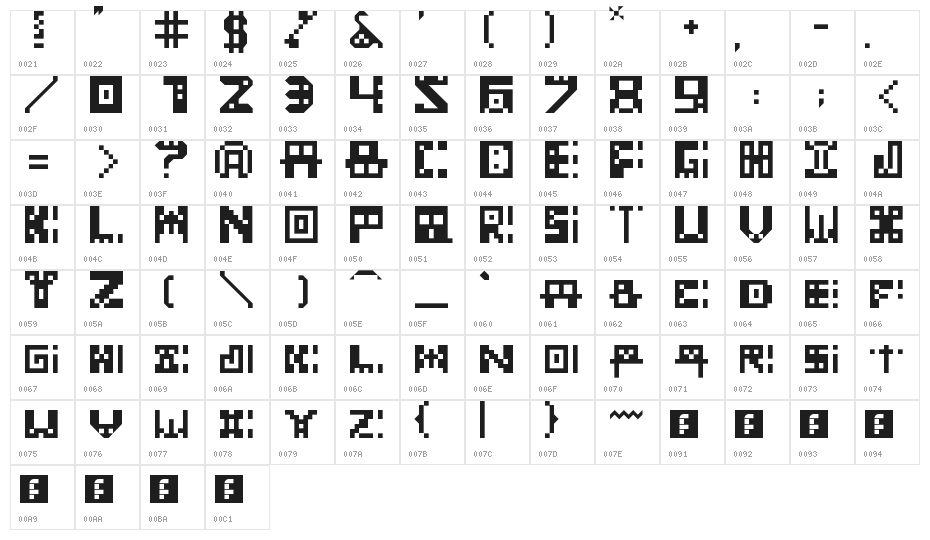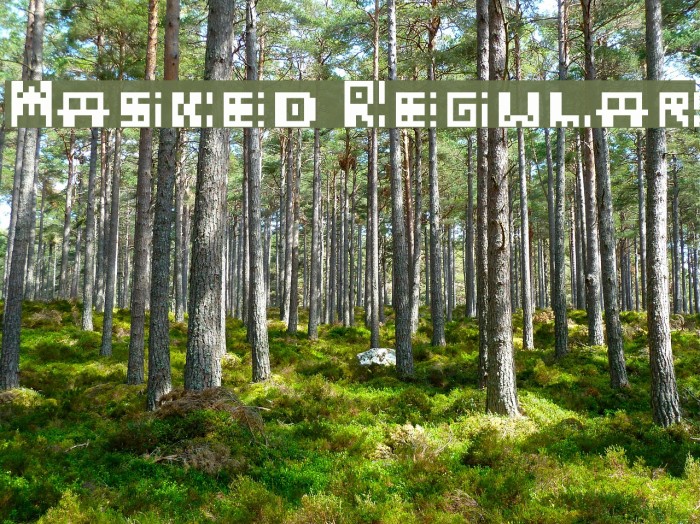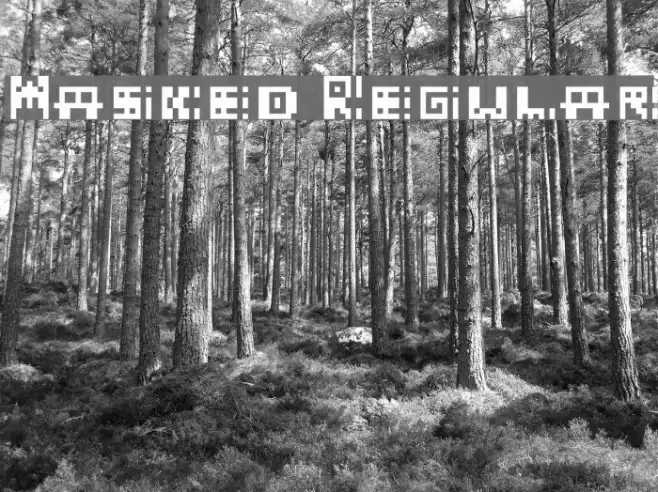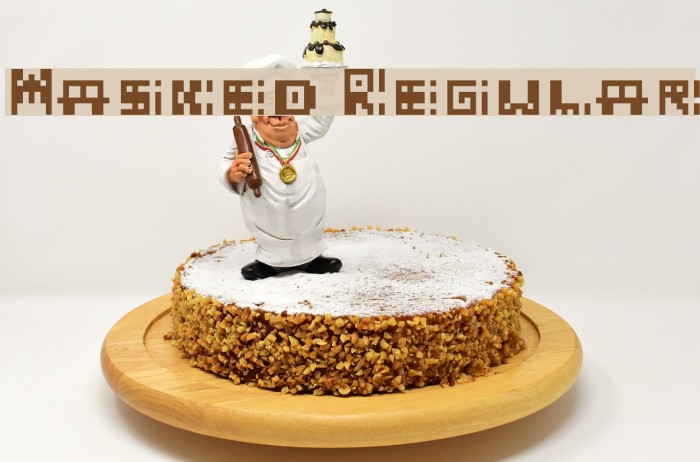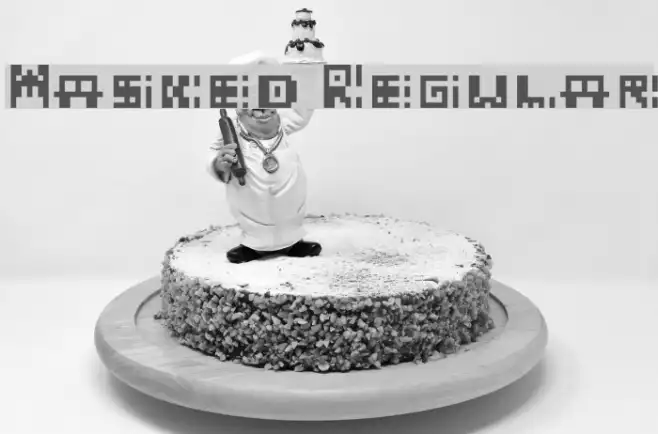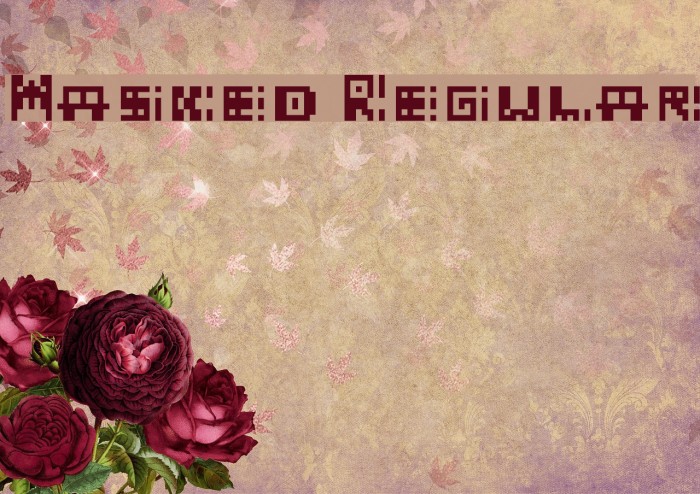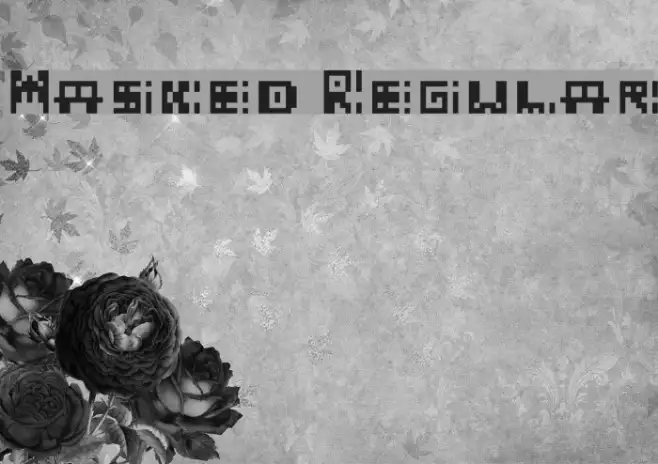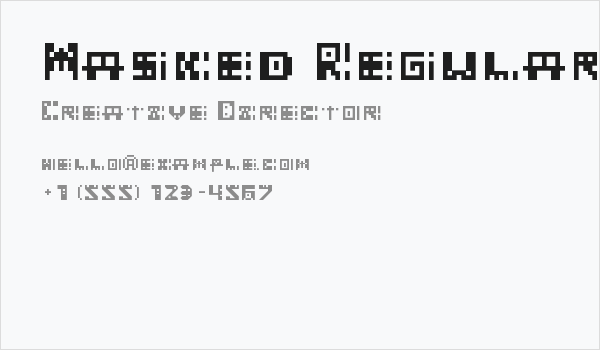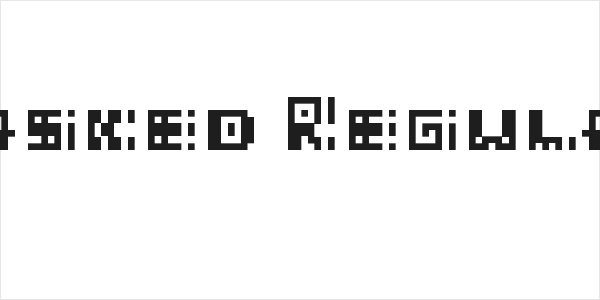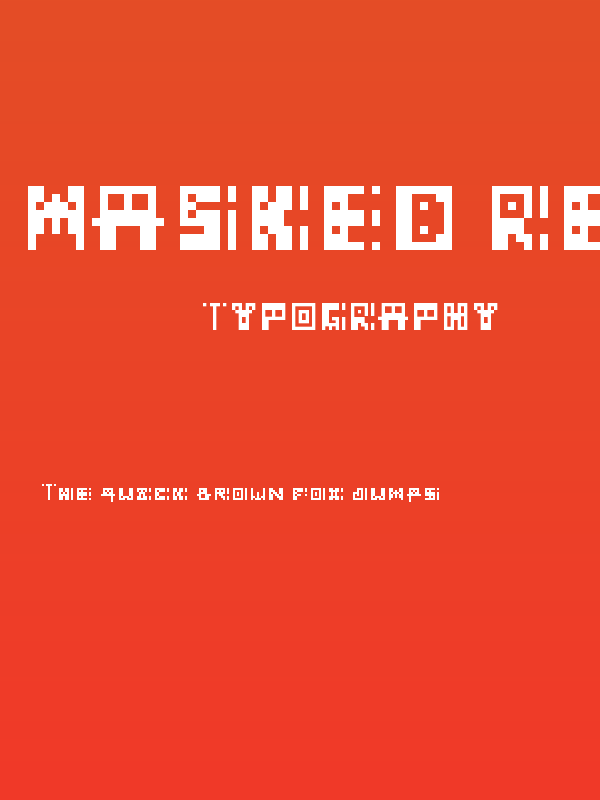
Masked Regular Font
Masked Regular Description
This font features a unique, pixelated design that evokes a retro, digital aesthetic reminiscent of early video games or computer graphics. Each character is constructed with a blocky, grid-like pattern, giving it a distinct, geometric appearance. The uppercase and lowercase letters maintain a consistent style, with sharp angles and a uniform height that enhances readability despite the unconventional design. Numbers and special characters follow the same stylistic approach, ensuring a cohesive look across all glyphs. The font's bold, striking presence makes it ideal for projects that aim to capture a sense of nostalgia or a futuristic, tech-inspired theme.
Overall StyleRetro, Digital
Proposed ProjectsIdeal for video game graphics, tech-themed posters, digital art projects, and retro-style branding.